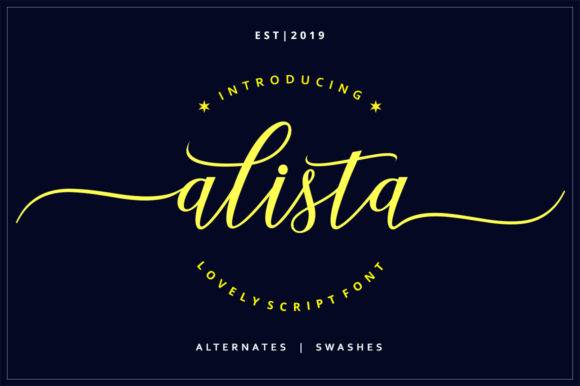
Alista Font Font for Cricut, Silhouette and Printable Designs
This is a flowing, stylish script font designed with compatibility in mind for Cricut, Silhouette, and a wide range of printable design applications. Alista Font delivers smooth curves and natural stroke contrast, ideal for both creative personalization and professional-quality output. With its elegant aesthetics, Alista Font pairs beautifully with various themes, enhancing projects from wedding invitations to custom home decor. For those seeking a unique touch, the Angelina font design for Cricut offers an equally captivating option, allowing for intricate detailing and versatility. Whether you're a hobbyist or a professional designer, these fonts elevate the quality of any creative endeavor. Whether you’re creating elegant invitations or crafting custom decor, Alista Font shines in any project. It's particularly versatile for those looking to pair it with the almond cookies font for crafts, enhancing your designs with a whimsical touch. With its elegant flair, this font is perfect for adding a personal touch to any creation.
As a font entity, it brings a polished handwritten aesthetic to your DIY projects, with legibility tuned for cutting machines and clear print finishes. Whether crafting home décor, event materials, or custom gifts, it adapts beautifully to your vision.
- Vinyl decals and apparel prints
- Printable wedding and party stationery
- Planner pages, stickers, and tags
- Home décor items and signs
- Scripted flow with print-ready clarity
- Perfect for cutting, printing, and crafting
- Balanced elegance and functionality
Q: What kind of font is Alista Font?
A: Alista Font is a script typeface designed for smooth application in crafting, print, and cutting workflows.
A: Absolutely. It’s an excellent fit for printables and event-based stationery.
| Font Style | Modern handwritten script | Casual script | Chunky display |
| Primary Use | Cricut, Silhouette, printable crafts | Invites and handmade tags | T-shirt quotes and labels |